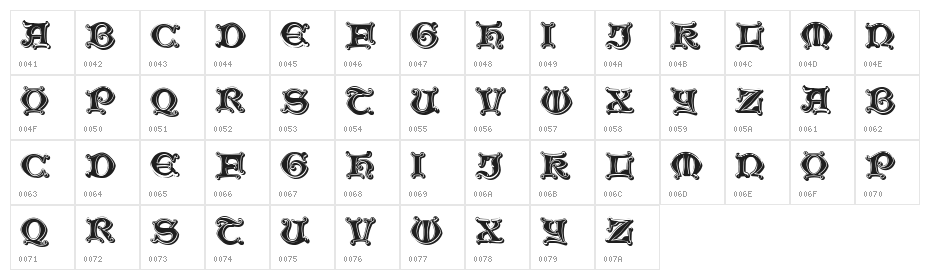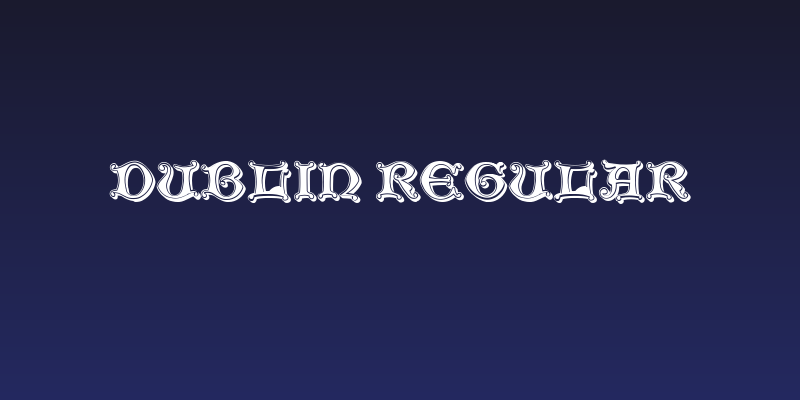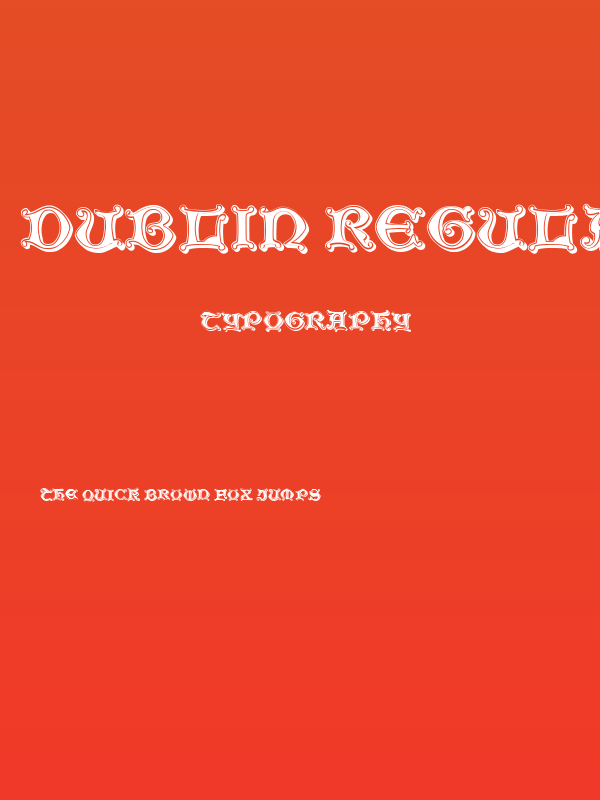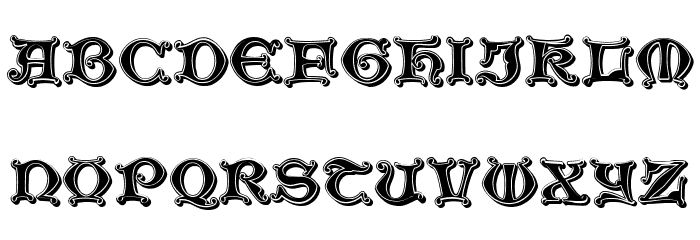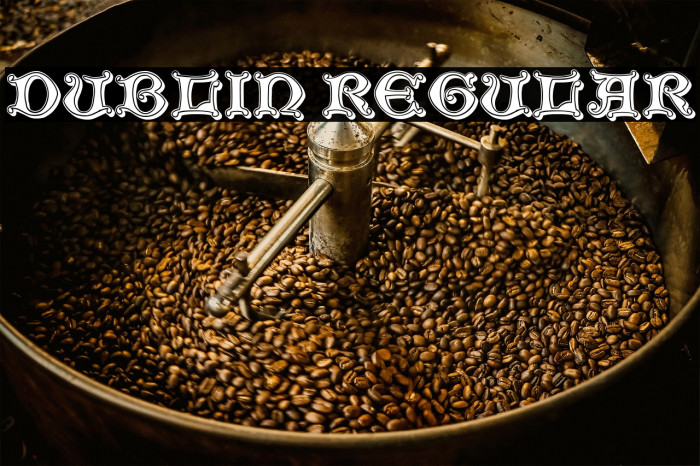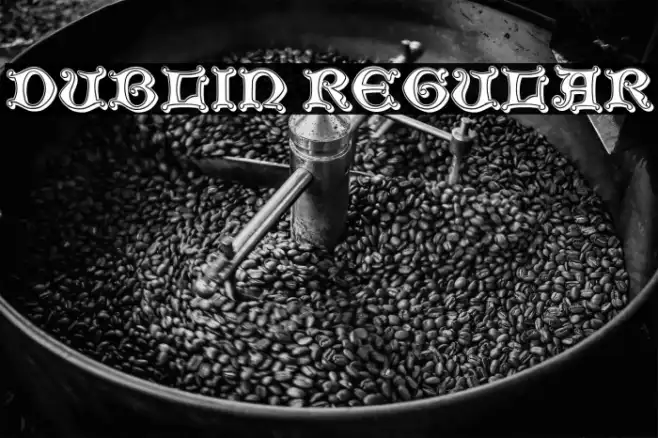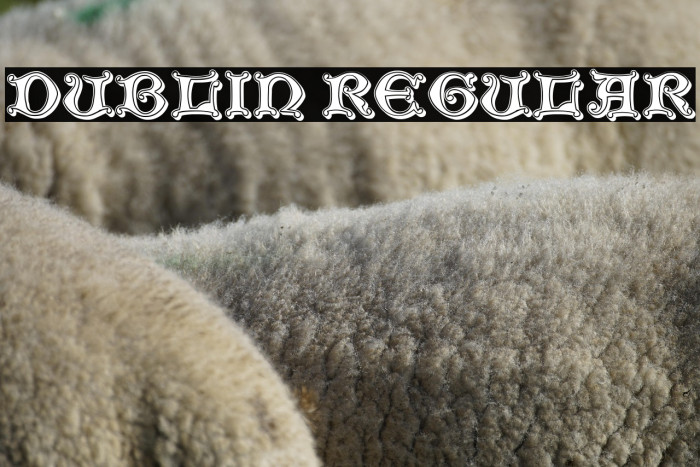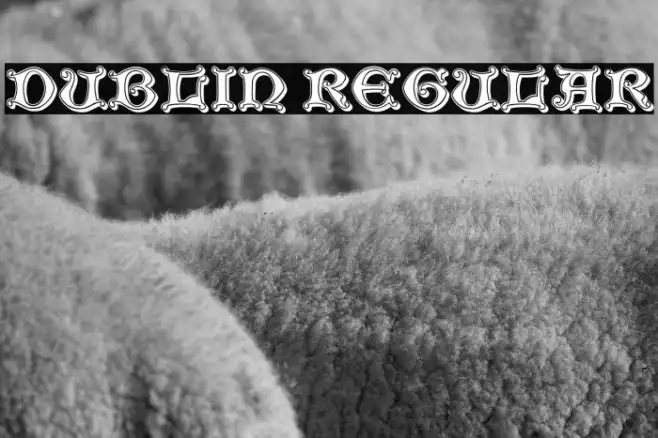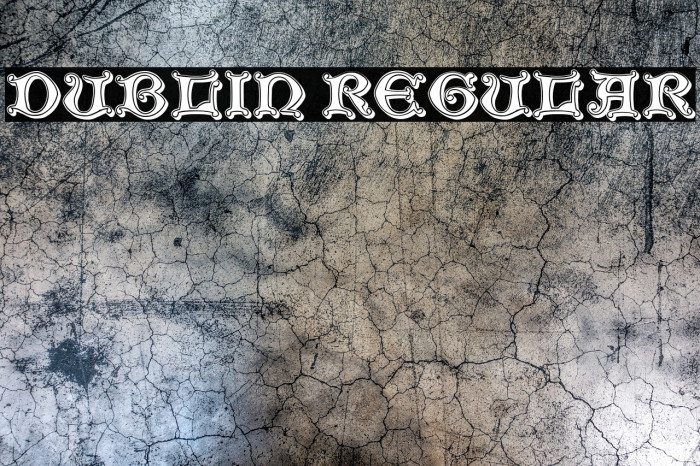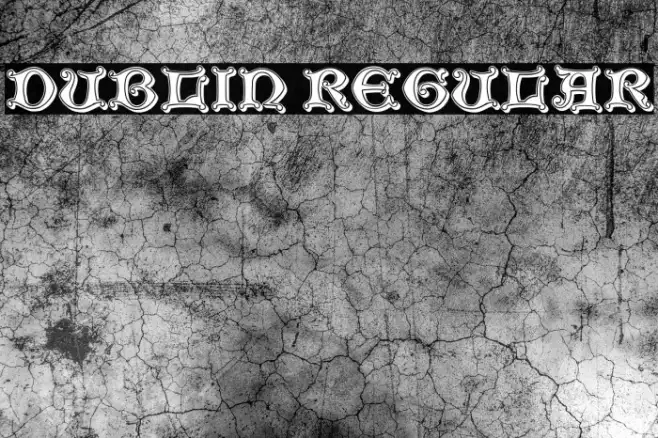
Dublin Regular Font
Dublin Regular Description
This font features an ornate and decorative style, characterized by intricate detailing and flourishes on each letter. The design is reminiscent of traditional blackletter fonts, with a modern twist that adds a unique flair. The uppercase letters are bold and commanding, while the lowercase letters maintain the same decorative elements, ensuring consistency throughout. The numbers and special characters are equally embellished, making them stand out. This font is perfect for projects that require a touch of elegance and historical charm, such as invitations, posters, or branding materials.